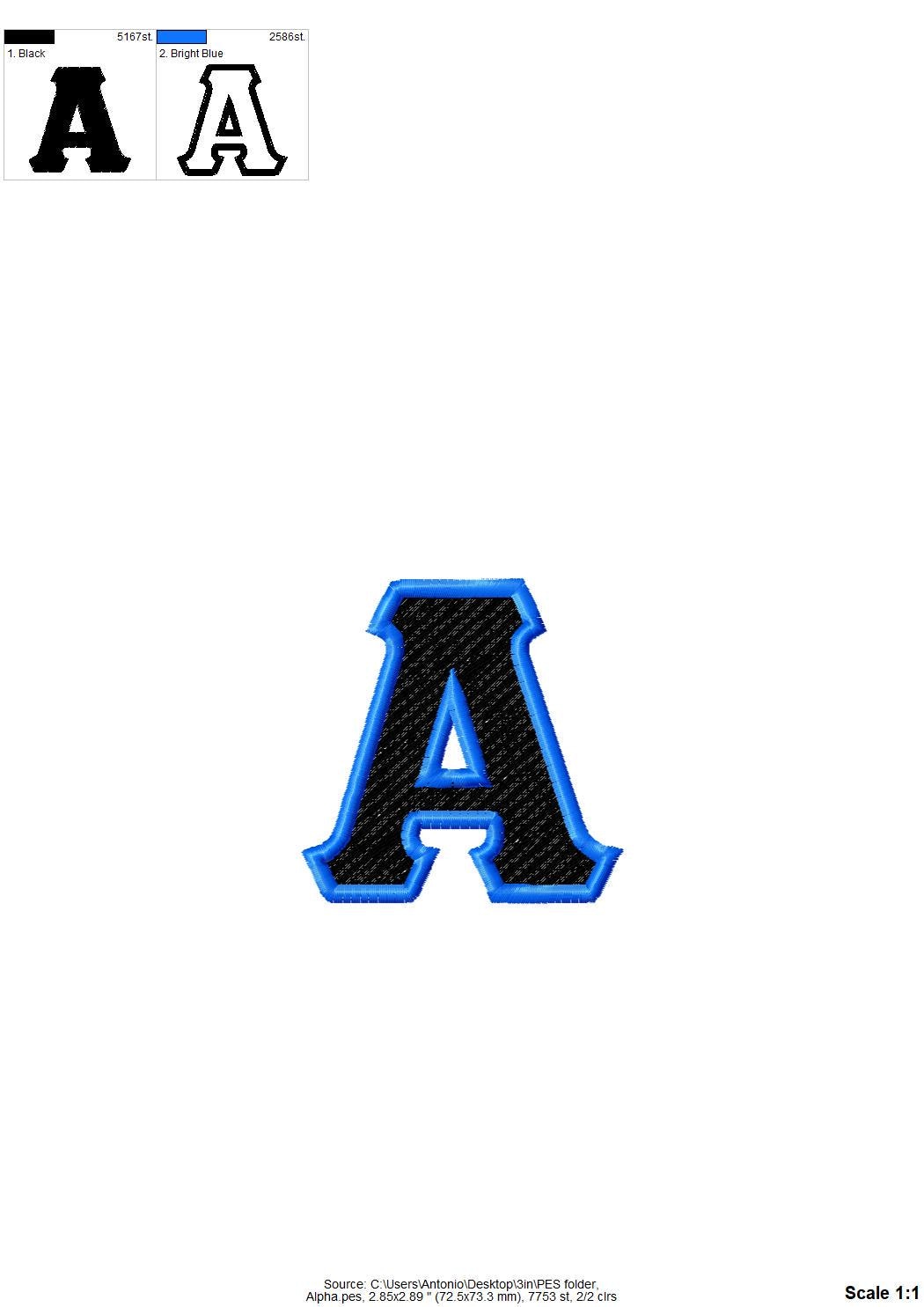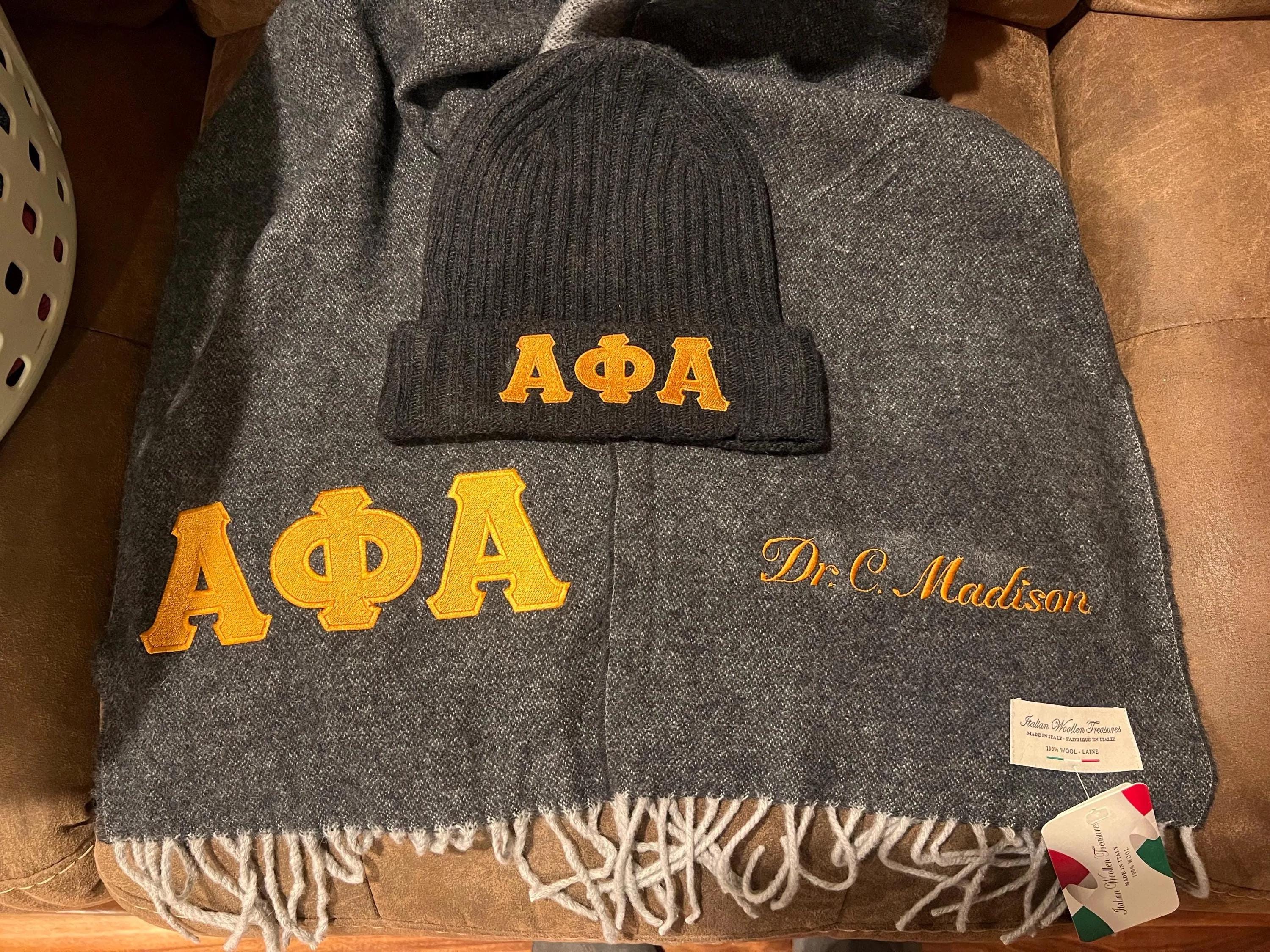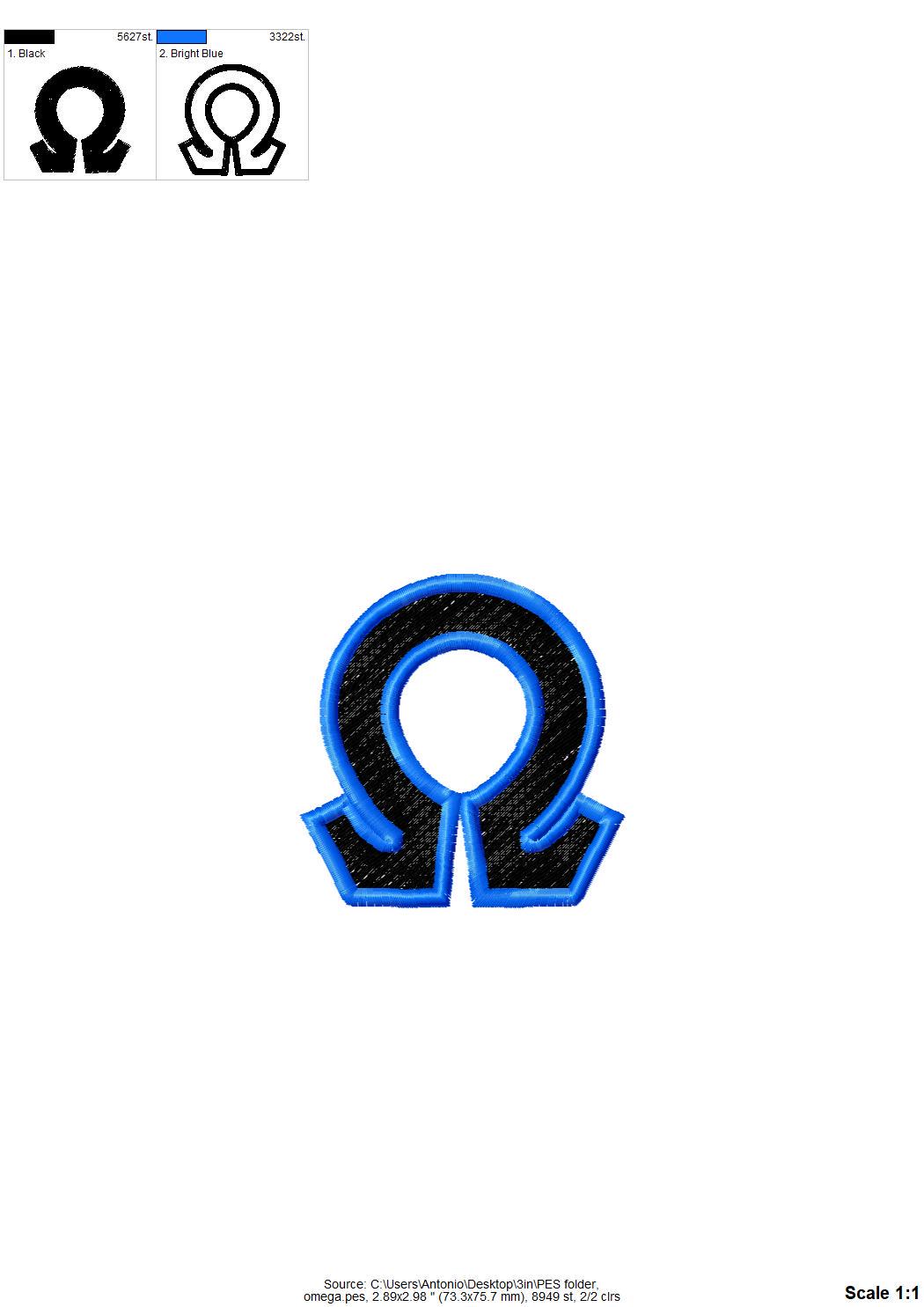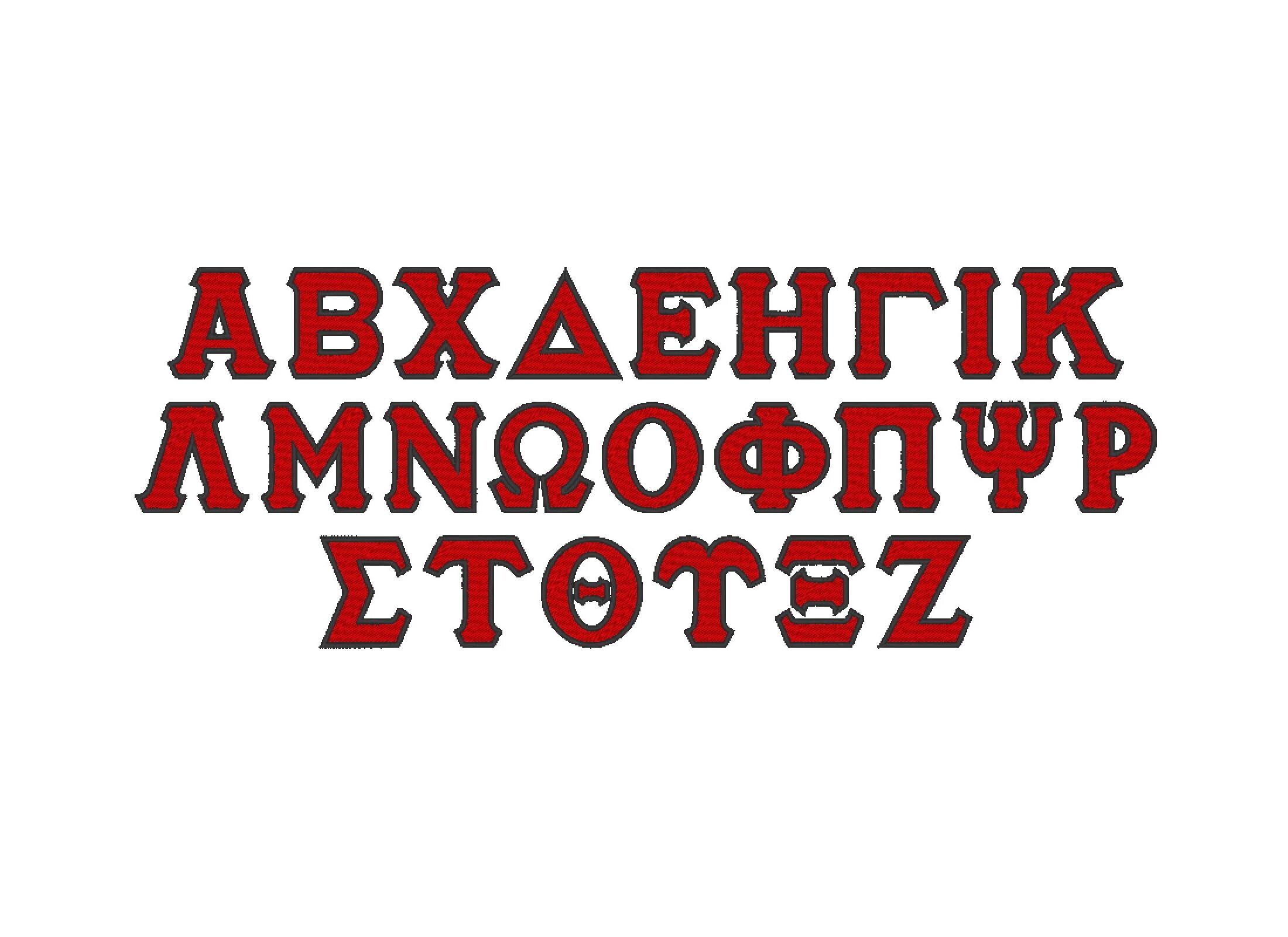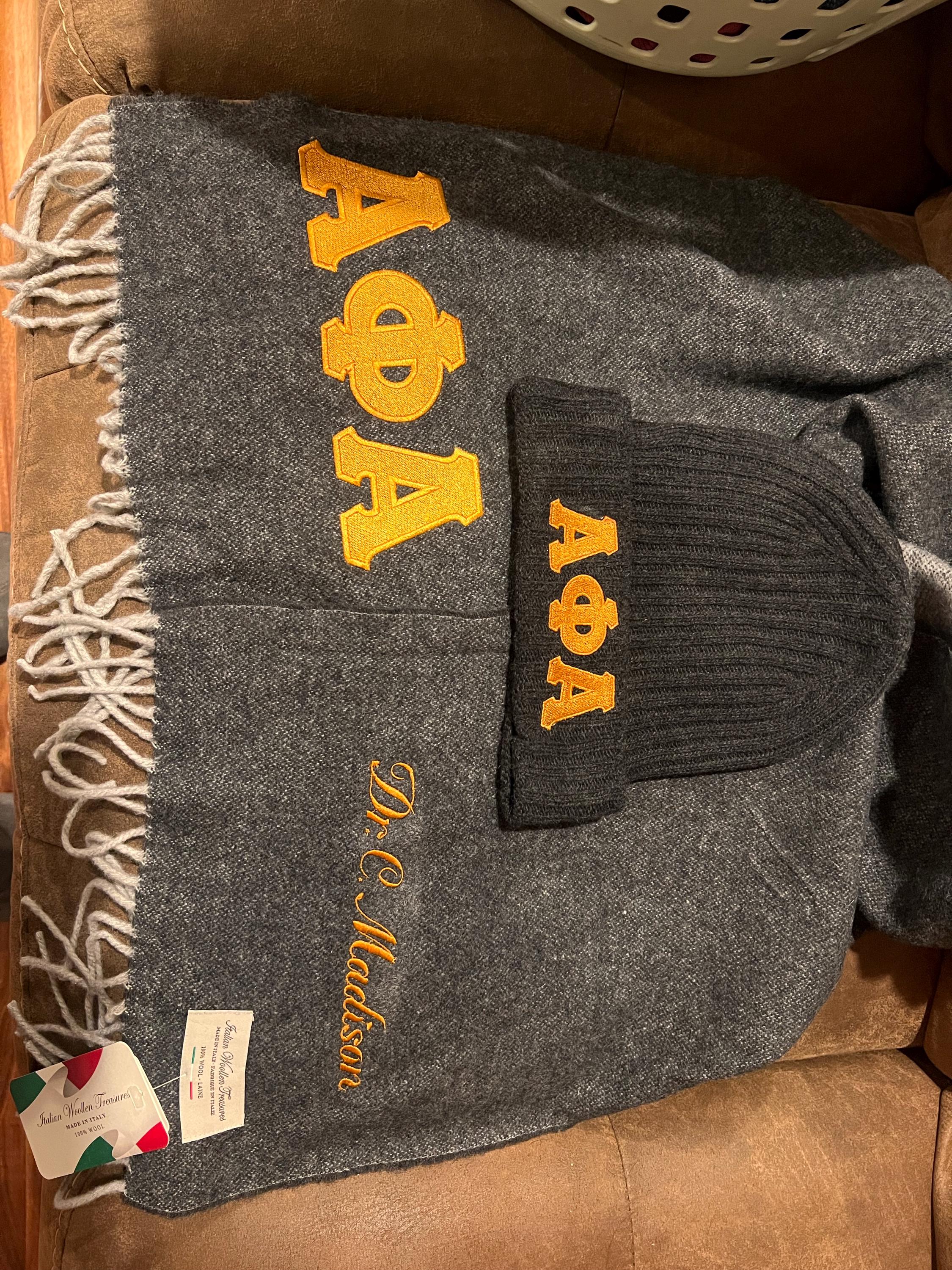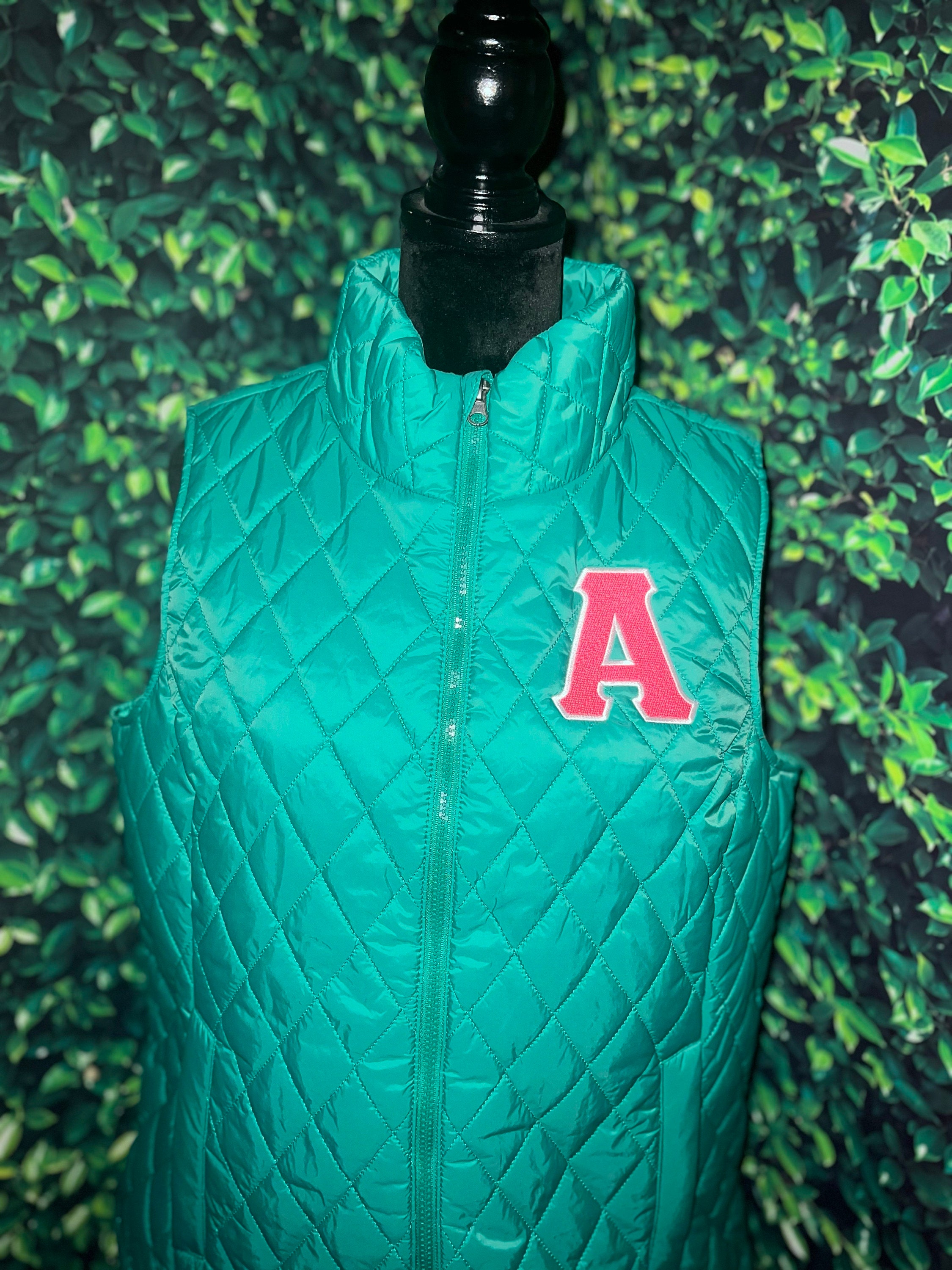
Greek Font 2 colors alphabet sororities fraternities fill stitch Font and outline machine embroidery designs sizes 1.5 up to 4 inches and BX
Font is fill sttiched and has contrast (second color) finish outline.